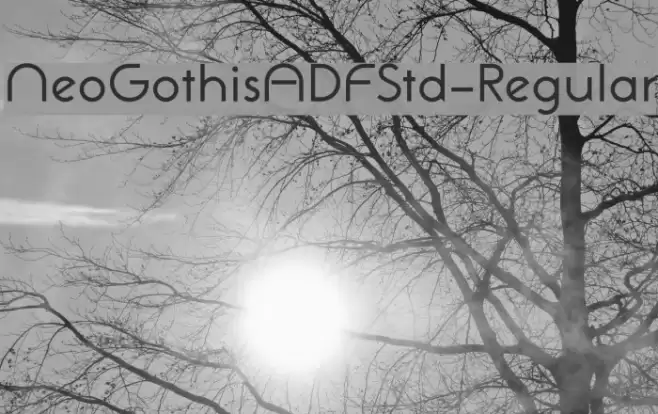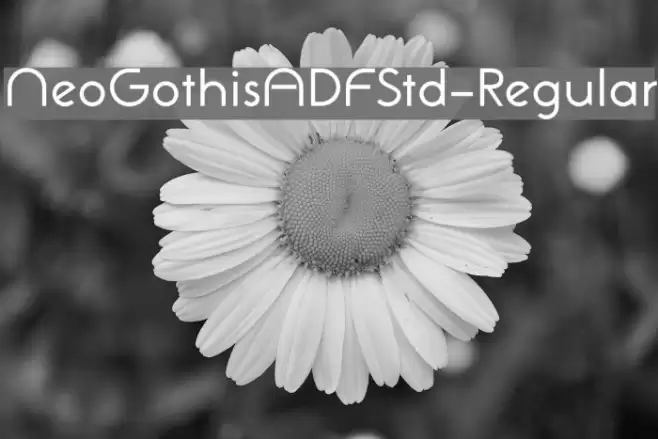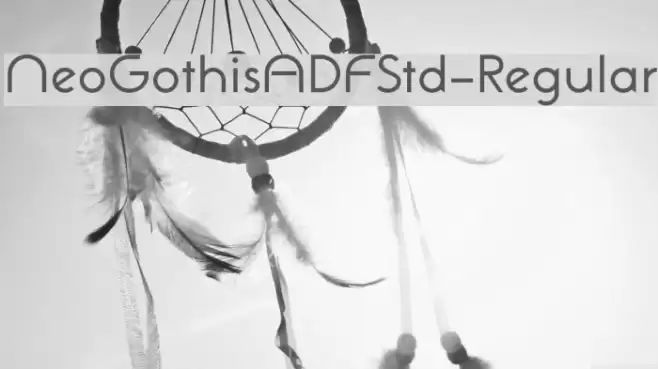
NeoGothisADFStd-Regular Font
NeoGothisADFStd-Regular Description
This font features a clean and modern design with a geometric structure. The characters are well-balanced with a consistent stroke width, giving it a sleek and contemporary appearance. The uppercase letters have a rounded quality, while the lowercase letters maintain a uniform height, enhancing readability. The numerals are distinct and clear, making them suitable for various applications. Special characters are designed with simplicity in mind, ensuring they blend seamlessly with the overall style. This font is versatile and can be used in both digital and print media.
A modern, geometric font with clean lines and consistent stroke width from Uncategorized fonts.
- Proposed Projects: Ideal for branding, advertising, web design, and editorial layouts.
- Use Case: Headlines, Body text, Logos